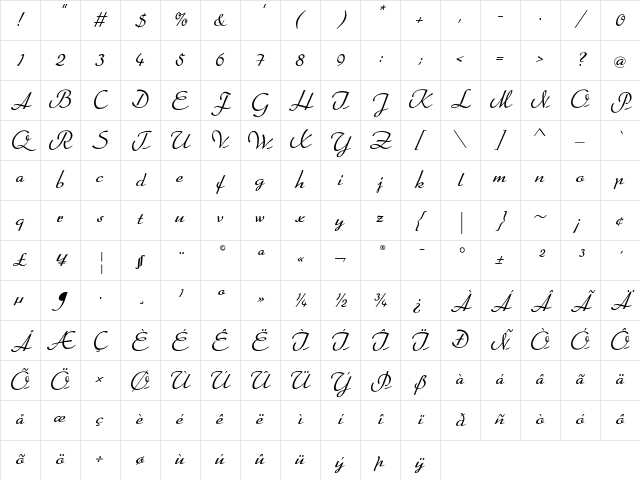
Arabella Pro Light
Design Context for Arabella Pro
Arabella Pro is a composed and adaptable typeface that performs quietly and consistently across a wide range of design contexts. Its slender proportions lend an understated elegance to any composition.